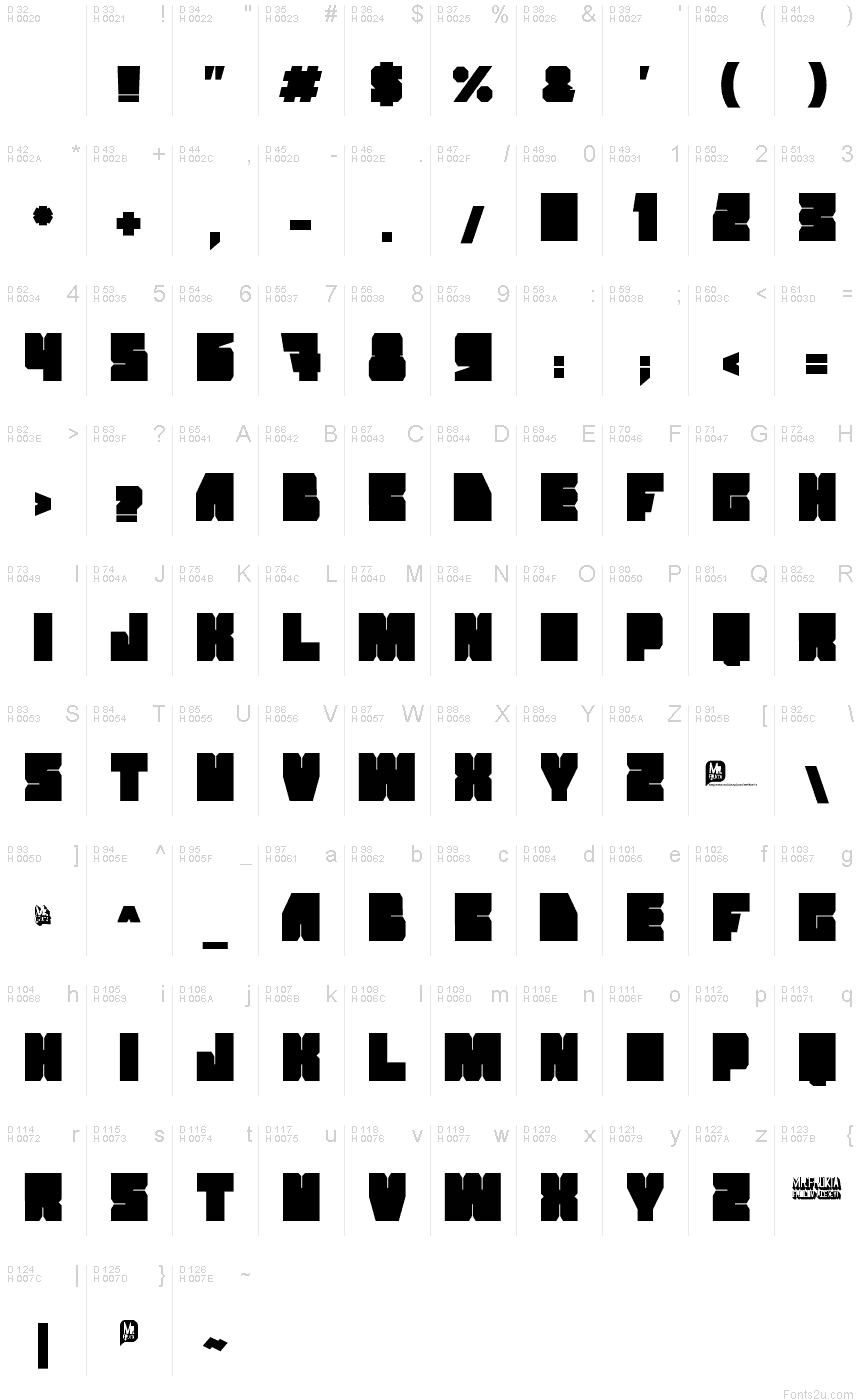
GrandNover by Frolov Alexey of MR.frukta is a free techno display font built from massive, tightly fitted capitals. Sharp cutaways and narrow linear incisions break up the broad shapes, giving the lettering an industrial, machine-tooled look.
Its futuristic styling suits electronic music posters and game graphics, where the dense silhouettes can become part of the central image. It also fits apparel branding with a hard-edged technical theme. In editorial design, it can turn cover lines into architectural elements.